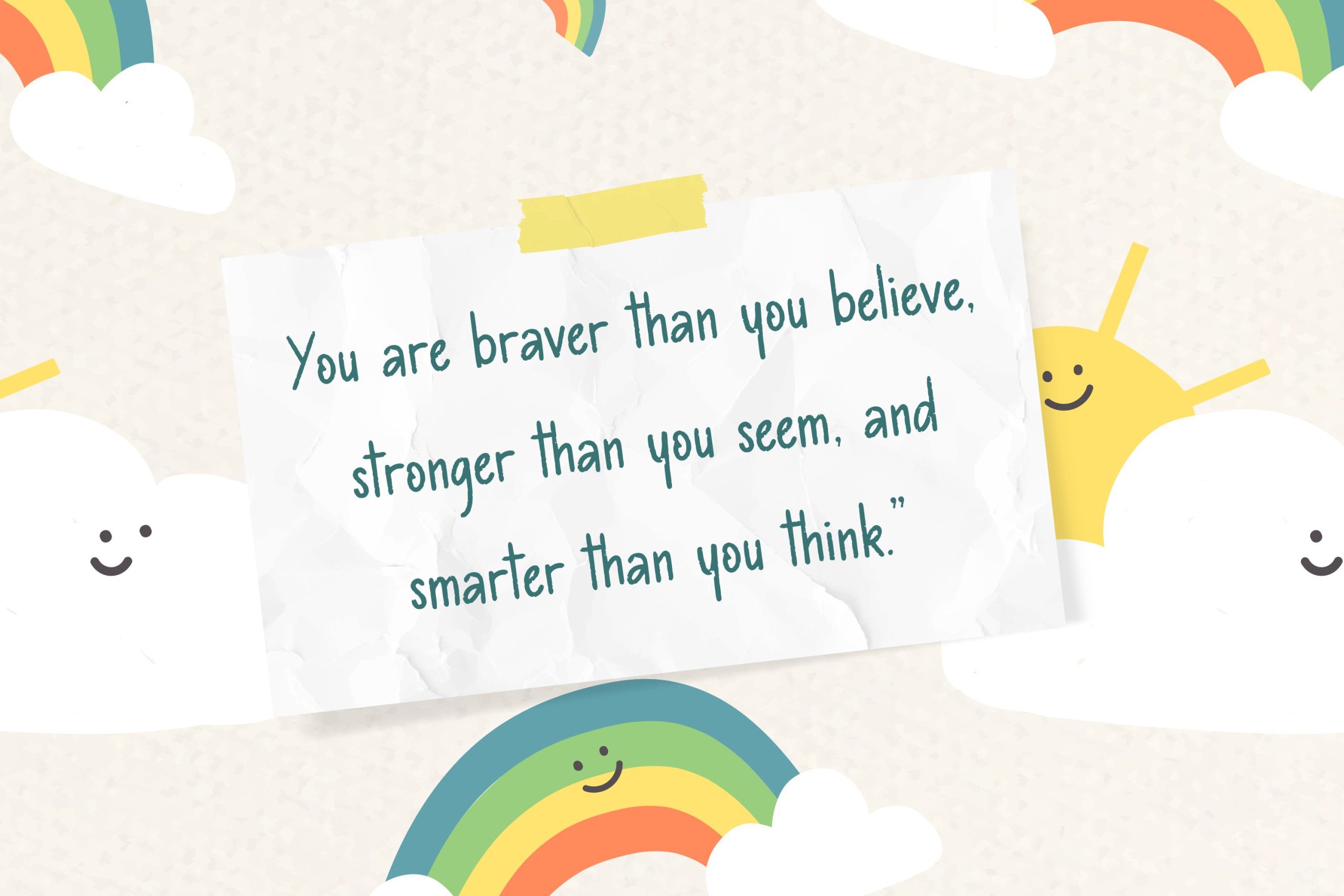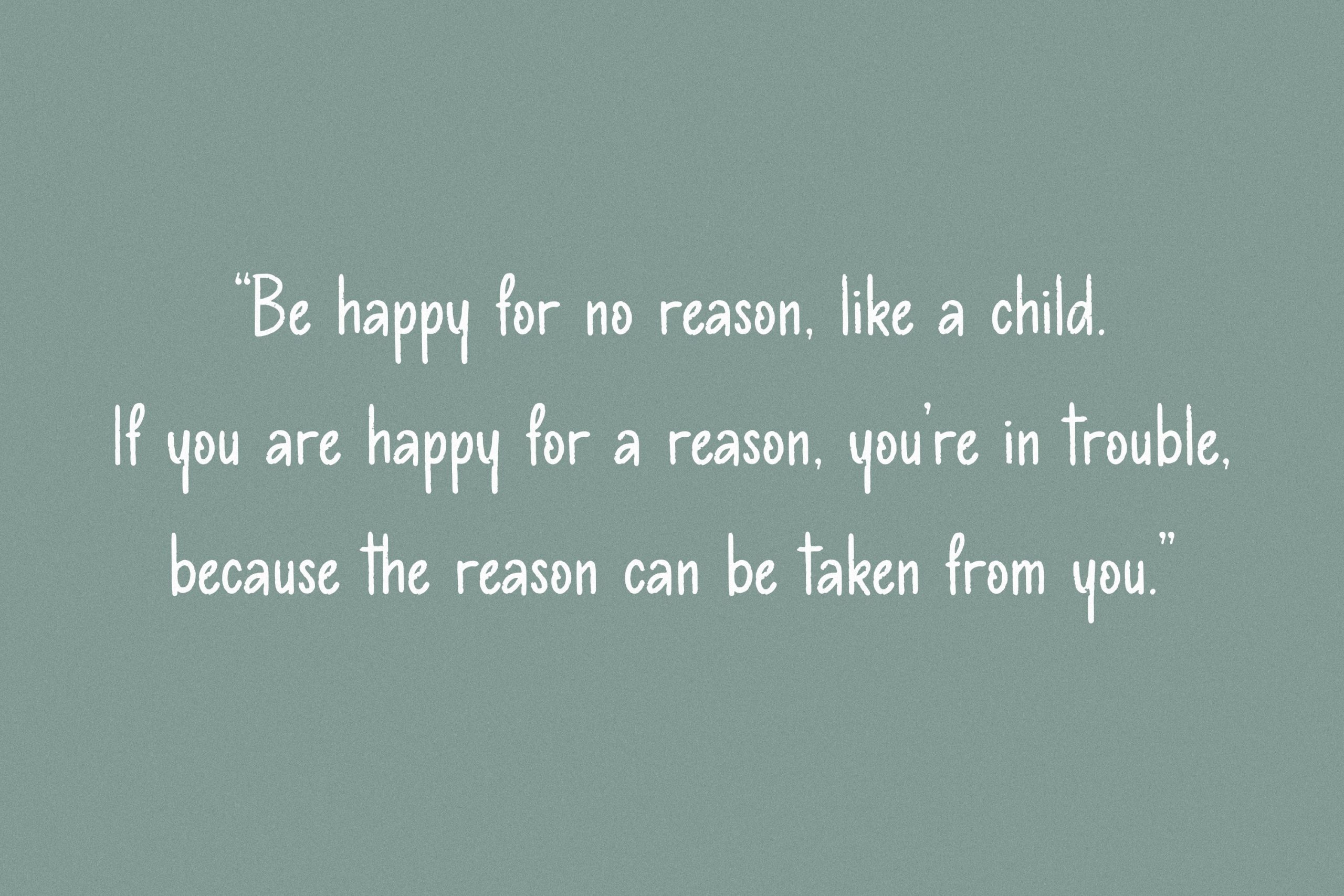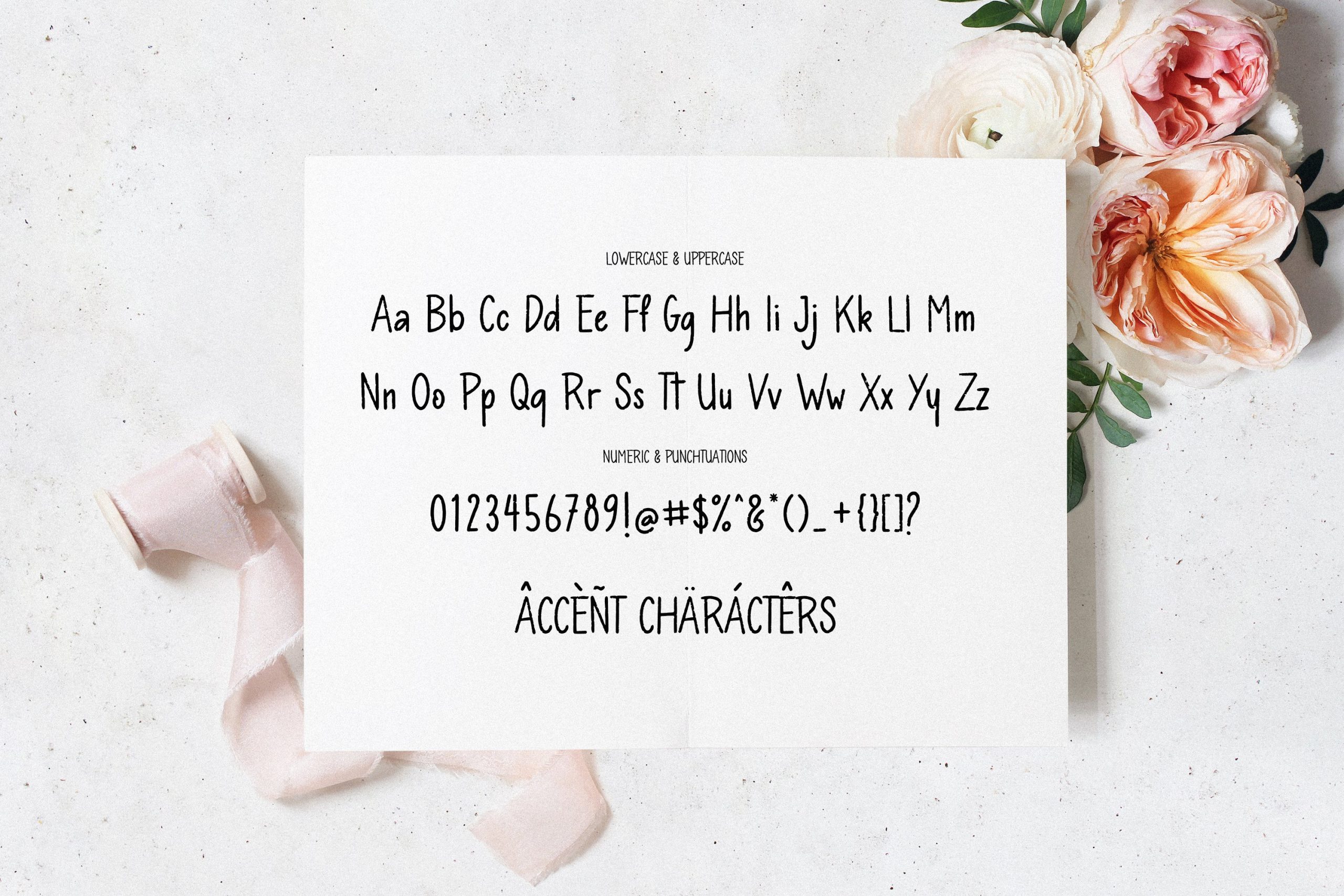
Magic Saturday Font Is a A Playfull Handwritten Font. Magic Saturday is perfect for product packaging, branding project, megazine, social media, wedding, or just used to express words above the background.